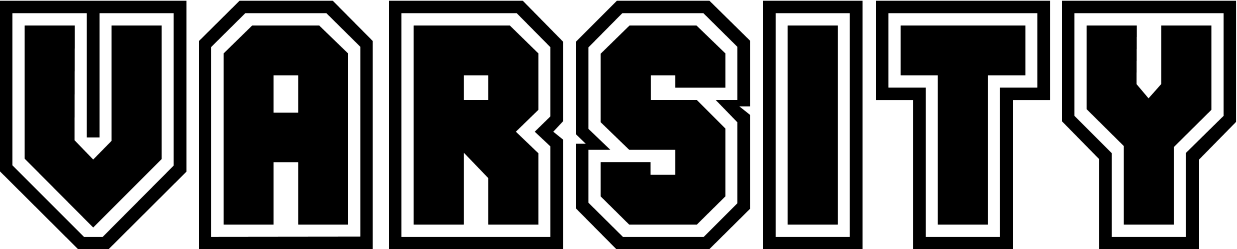
Varsity Font
Varsity font dazzles the eyes with its outline and jersey style. Get ready for this college font that is for those who are thinking of designing sports themes. This football, and basketball font has no lowercase letters.
Complete the design of sports brands such as football, basketball, and boxing with this font, and at the end, present your attractive and creative collage designs.